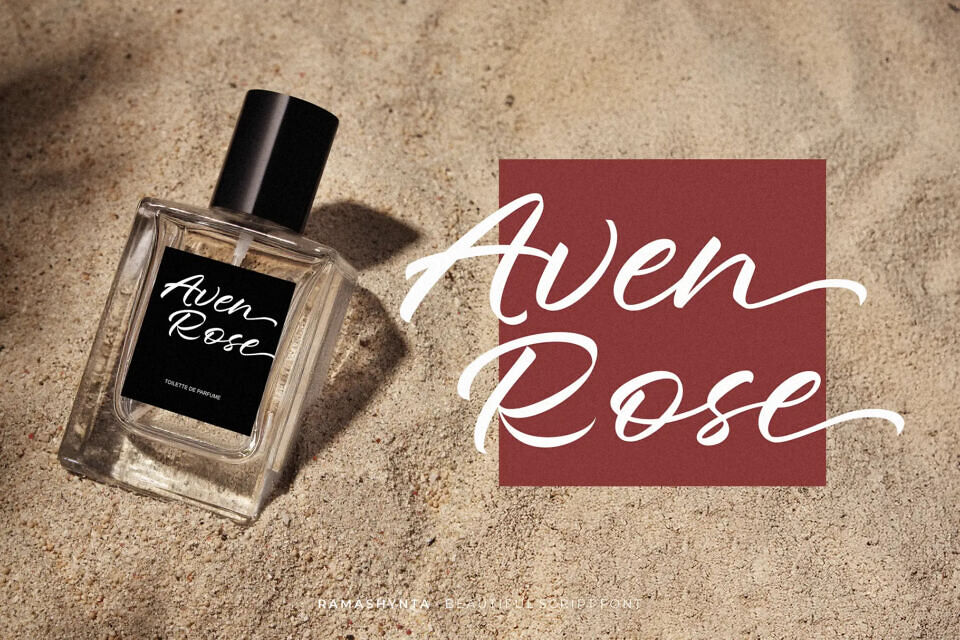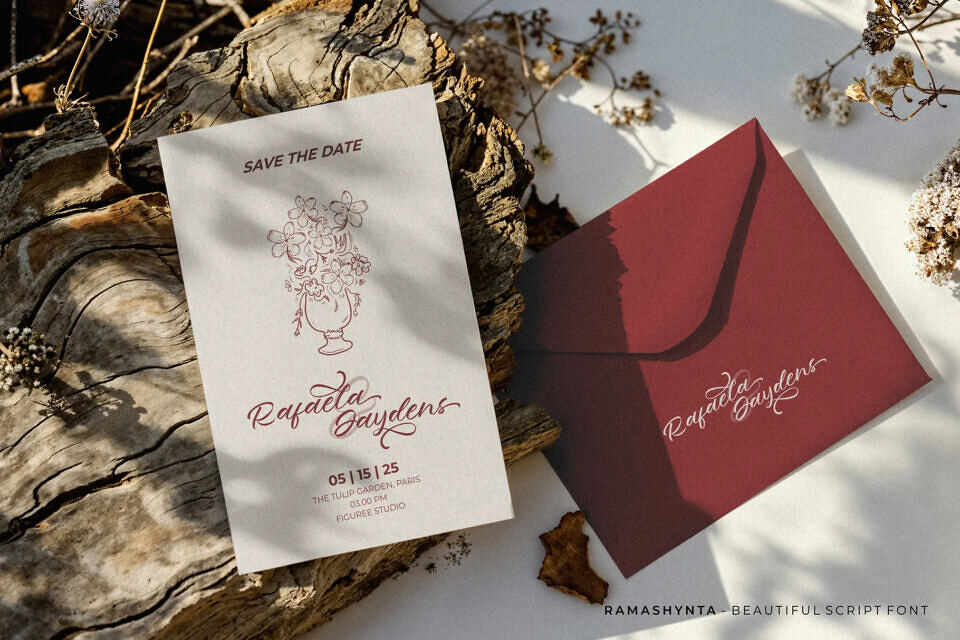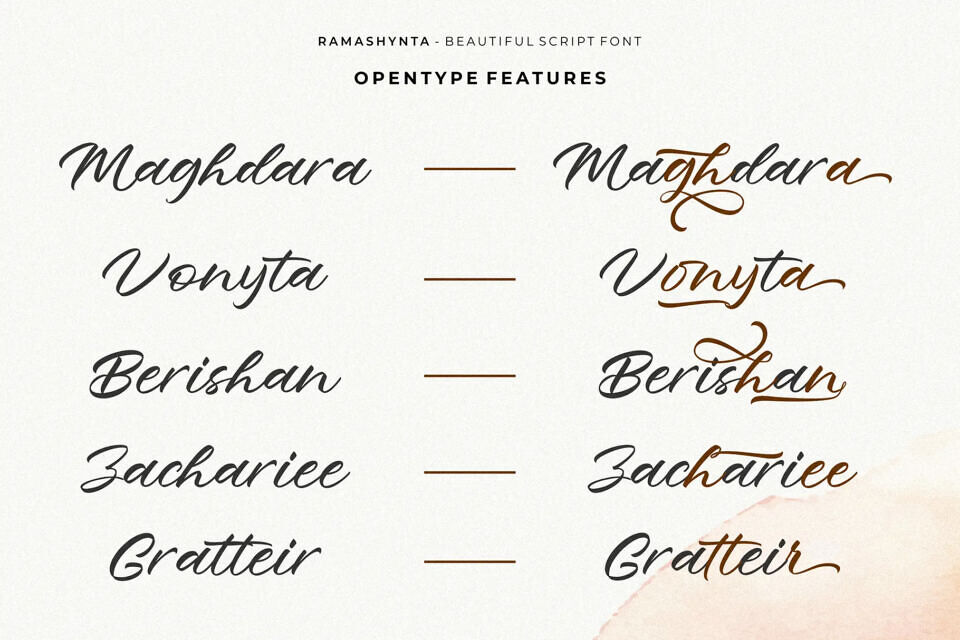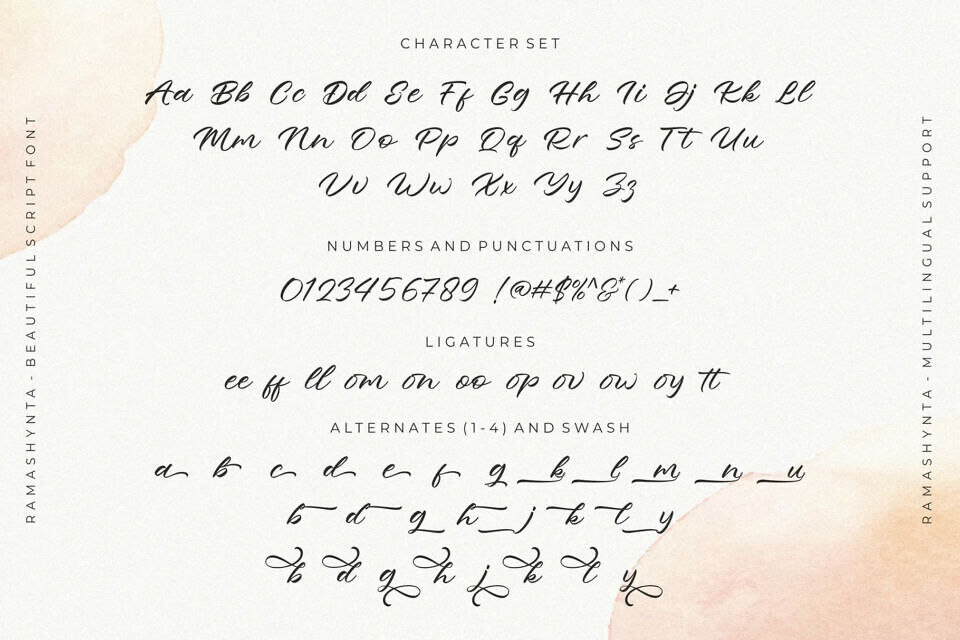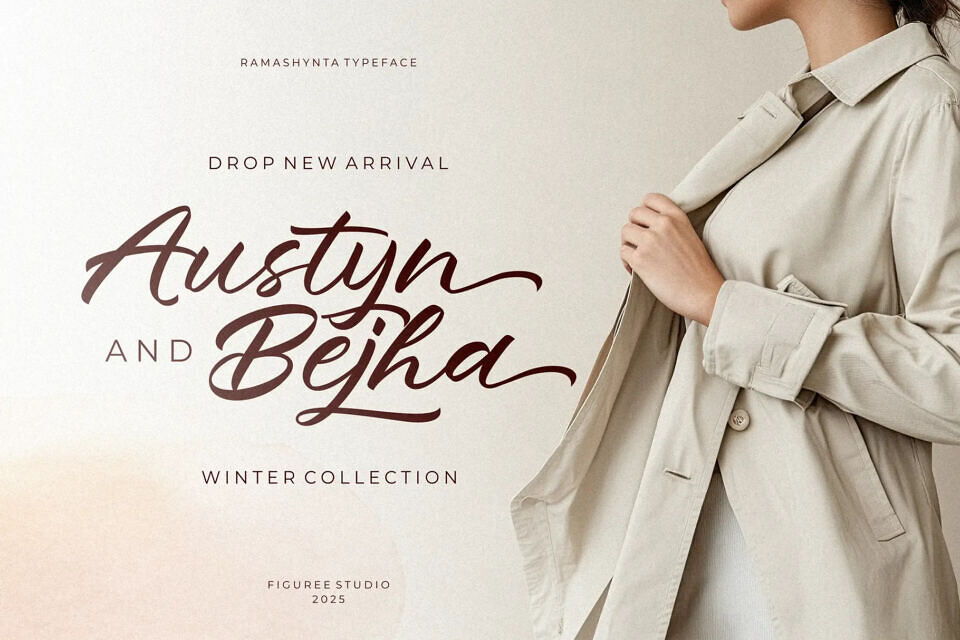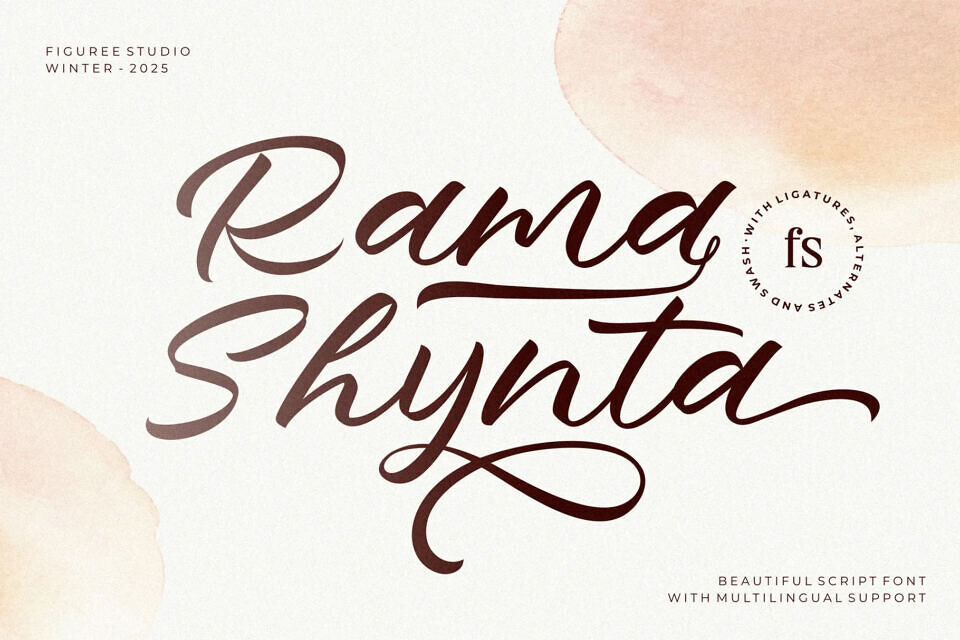
Ramashynta Font
Ramashynta is a beautiful script font designed to capture elegance, emotion, and artistry in every stroke. Its handcrafted ligatures, flowing alternates, and refined swashes bring a natural handwriting charm that elevates any project.
Perfect for wedding invitations, luxury branding, logos, packaging, or social media visuals, Ramashynta blends classic sophistication with modern appeal. The balanced contrast and graceful curves make this elegant script font ideal for designers seeking a touch of romance, prestige, and beauty in their creative work.